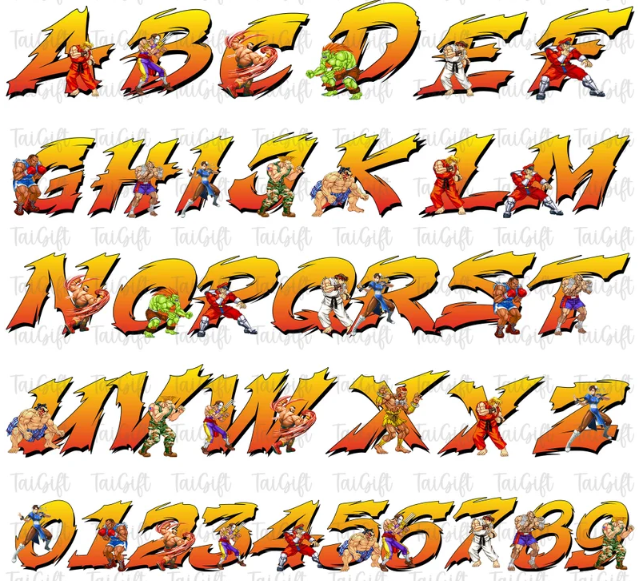
The Street Fighter font is a significant feature of the famous video game franchise since its appearance in 1987 and symbolizes the dynamic and competent vibe of the game. It has been eminently used in the logo, in the game screens, and promotional items, and it reflects the mounting game play and the adventurous theme, forever changing arcade gaming. As the fighting game font, it reveals the power and aggressiveness of the fight, which is easily recognized and is always associated with arcade culture.
Perfect for fans and designers, the Street Fighter font remains a symbol of action and creativity in gaming culture.
What is the Street Fighter Font?
In simple terms, the Street Fighter font can be described as a typeface that resembles the logo designs of the franchise. Due to its appealing style, which consists of well-defined shapes, powerful strokes, and a strong graphic drawn from the game’s perspective, it has been reproduced and conceptualised by fans and designers alike over the years.
Key Features of Street Fighter Font:
Dynamic and Energetic Design: The font’s bold, kinetic style mirrors the excitement and high-energy action typical of fighting games.
Sharp Edges and Bold Strokes: Each character’s intense design emphasizes motion and aggression, reflecting the essence of competitive gameplay.
Customizable Variants: Offers modern and minimalist adaptations, making the font versatile for a wide range of uses beyond gaming themes.
Applications of the Street Fighter Font:
The Street Fighter 6 font is highly versatile and used in a variety of creative and professional contexts, including:
Gaming Projects: Perfect for creating fan art, video game mods, or digital content that celebrates the iconic Street Fighter universe.
Event Branding: Ideal for designing eye-catching posters, banners, and other promotional materials for gaming tournaments or retro-themed events.
Pop Culture Merchandise: Widely used on T-shirts, hoodies, stickers, and collectibles, helping fans proudly display their love for the franchise.
Social Media Content: Adds a nostalgic and dynamic flair to posts discussing arcade games, gaming history, or e-sports culture.
Personalized Invitations: A creative choice for designing invites for parties or events themed around action, adventure, or classic arcade nostalgia.
Conclusion: Street Fighter Font
The classic Street Fighter font is one of the famous aspects of the game that inspires and signifies struggle and creativity. Whether it is for your own use, professional work, or simply reminiscing about the arcade times, this font brings back the nostalgic atmosphere of an iconic brand. It is safe to say that this font will be there to thrill its fans and creators in the years to come.